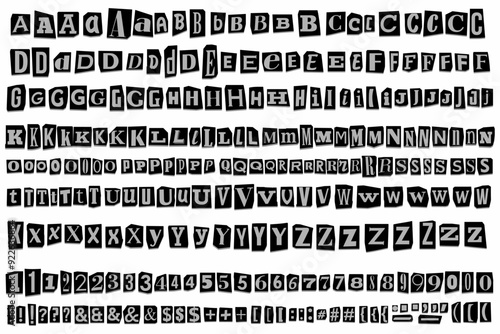
Anonymous gray and black Paper Cut out ransom vector letters alphabet. Blackmail Ransom Kidnapper Note Font English Letters, Numbers, punctuation marks. Collage trendy style criminal Detective letters